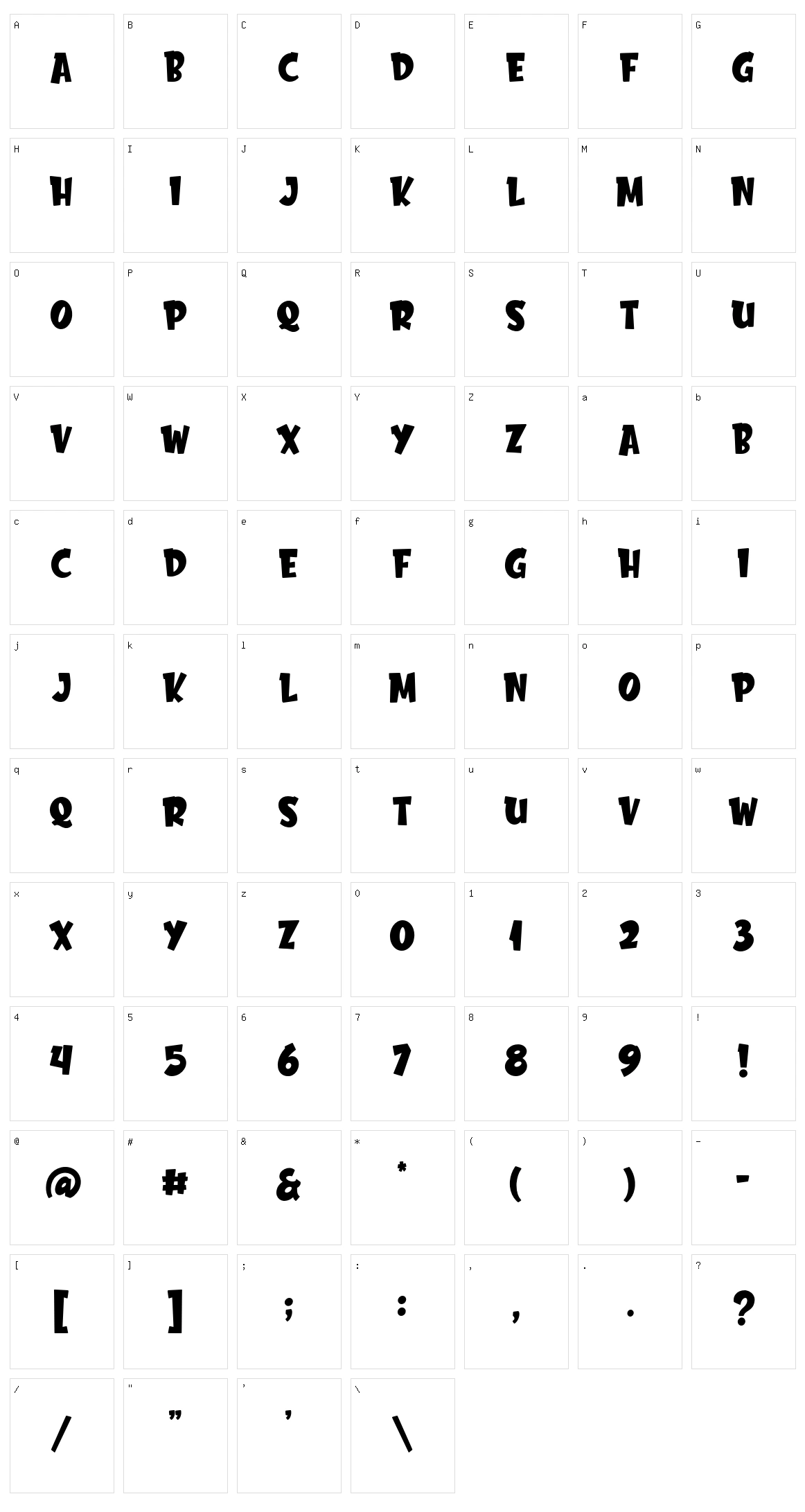
The free font Chester Network is carefully designed by Abo Daniel Studio, showcasing a thoughtful balance of creativity and usability and falls under the Cartoon font style. When you download the ZIP file, it contains only 527.18 KB of font files, making it lightweight and quick to download. Please review the license details below to understand permitted usage and distribution rights. If license information is not available, we recommend using this font for personal projects only or contacting the author directly for commercial usage permissions.
CHESTER NETWORK
- comic typeface -